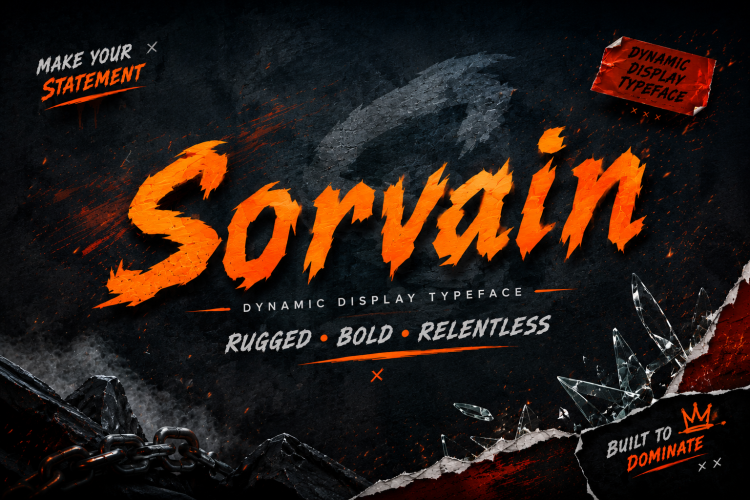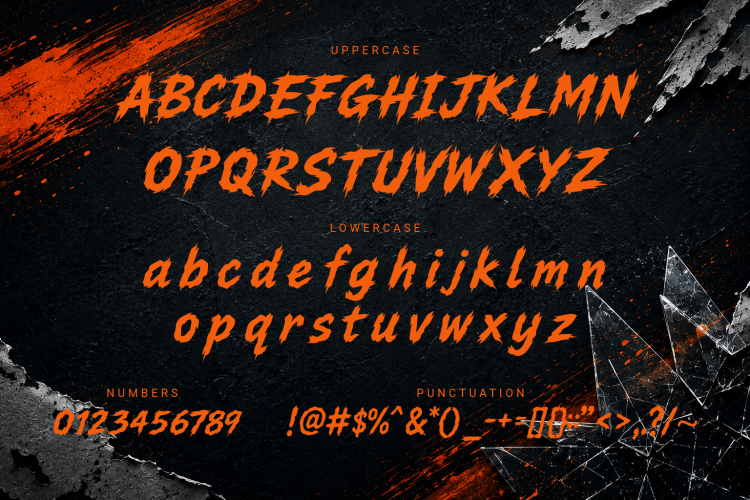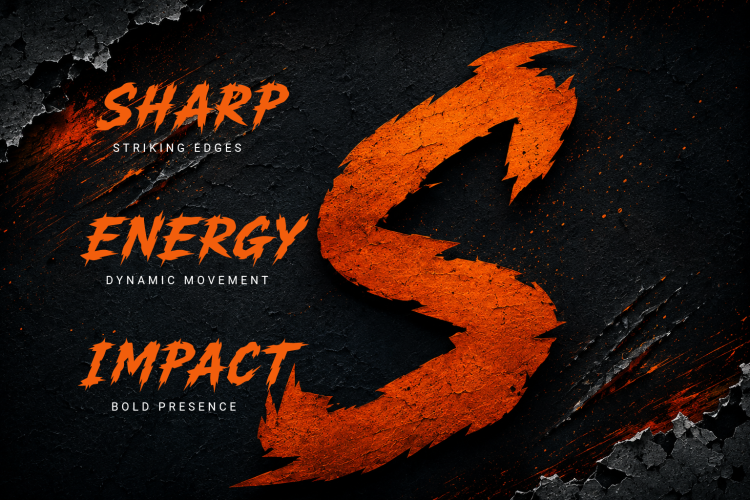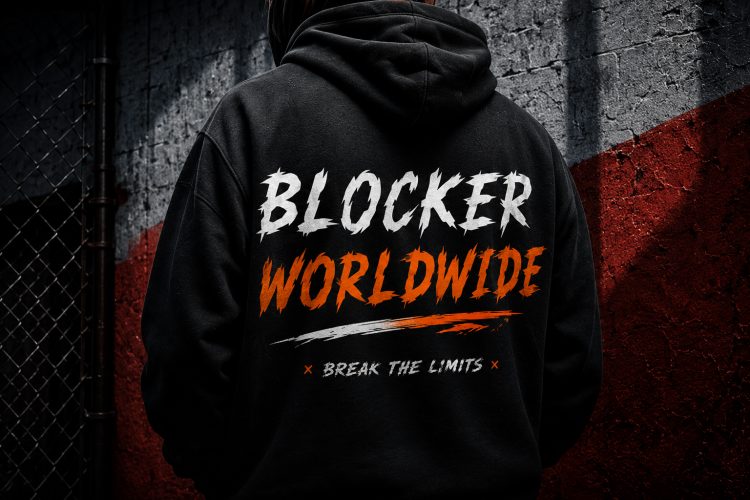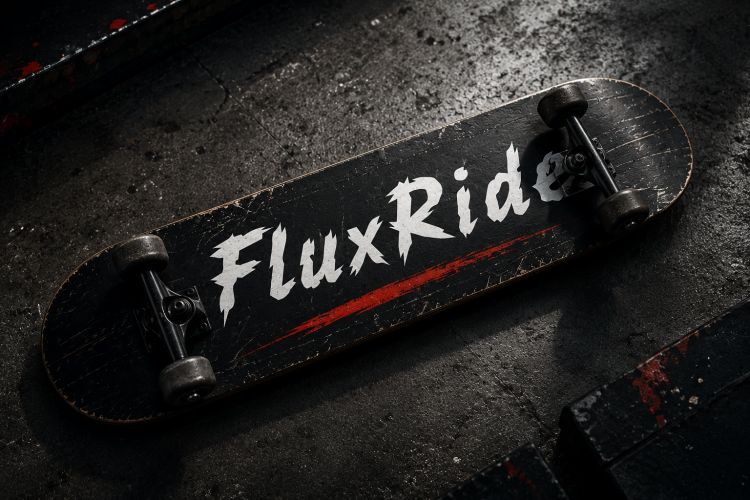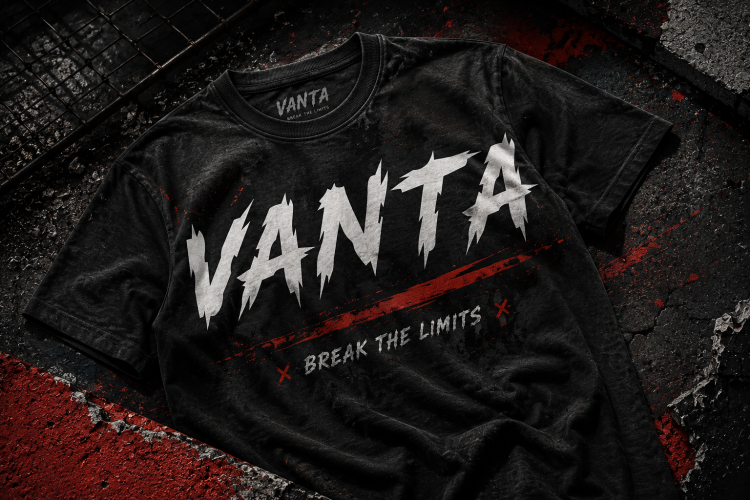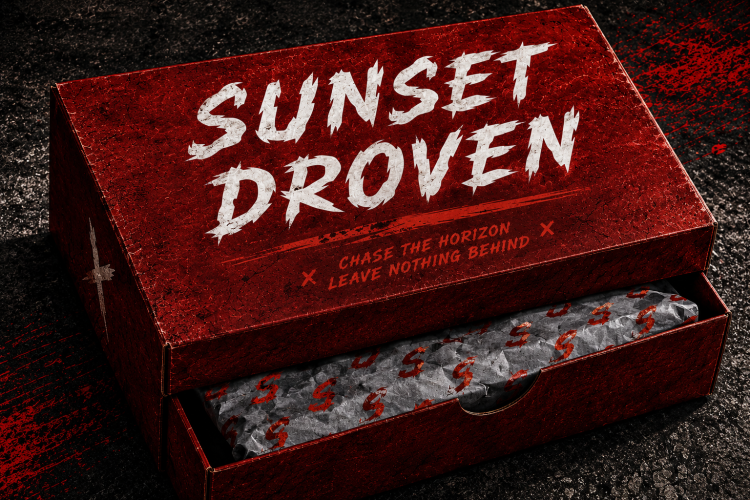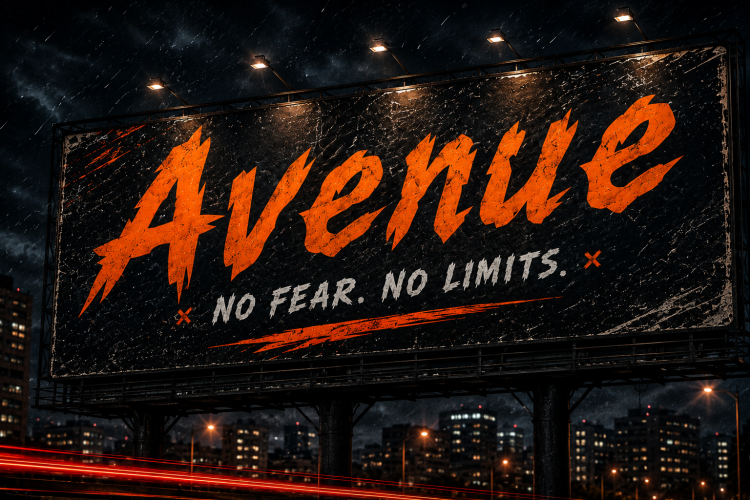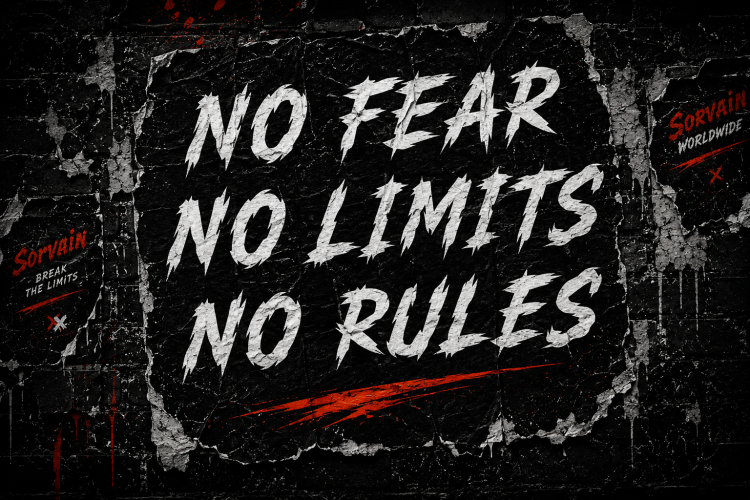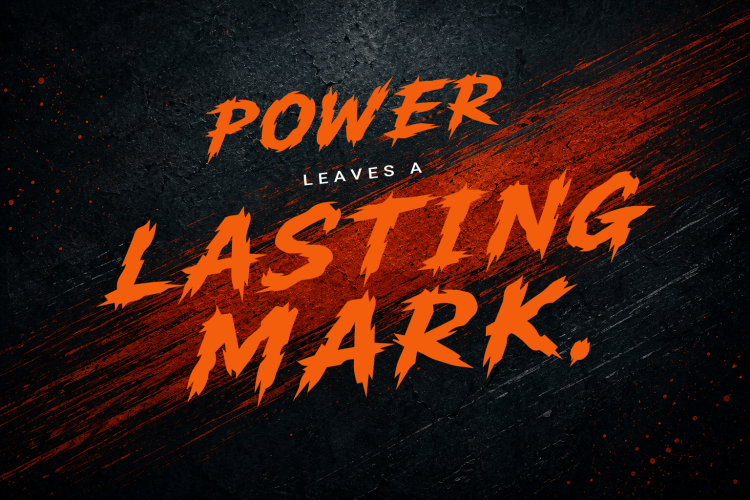
Unleash raw energy with Sorvain, an aggressive brush display font crafted for bold visual impact. Featuring sharp cuts, rough brush textures, and dynamic handcrafted strokes, Sorvain delivers a powerful urban aesthetic that commands attention.
Designed for creatives who want their typography to stand out, Sorvain is ideal for streetwear branding, esports graphics, gaming titles, sports posters, music artwork, apparel, product packaging, YouTube thumbnails, social media campaigns, and cinematic promotional designs.
Its expressive letterforms combine handcrafted brush movement with distressed details, making every headline feel energetic, rebellious, and unforgettable.
Perfect For
- Streetwear Branding
- Gaming & Esports
- Sports Posters
- Album Covers
- Movie Titles
- Action & Horror Designs
- Apparel Graphics
- Product Packaging
- Logo Design
- YouTube Thumbnails
- Social Media Graphics
- Event Posters
- Merchandise
- Advertising Campaigns
- Bold Editorial Layouts